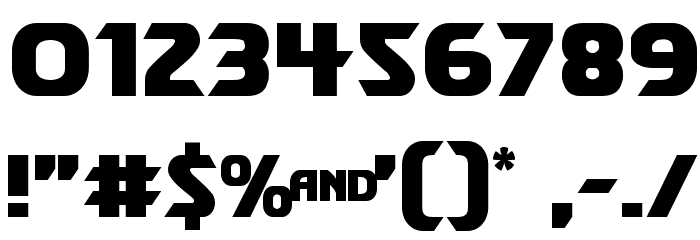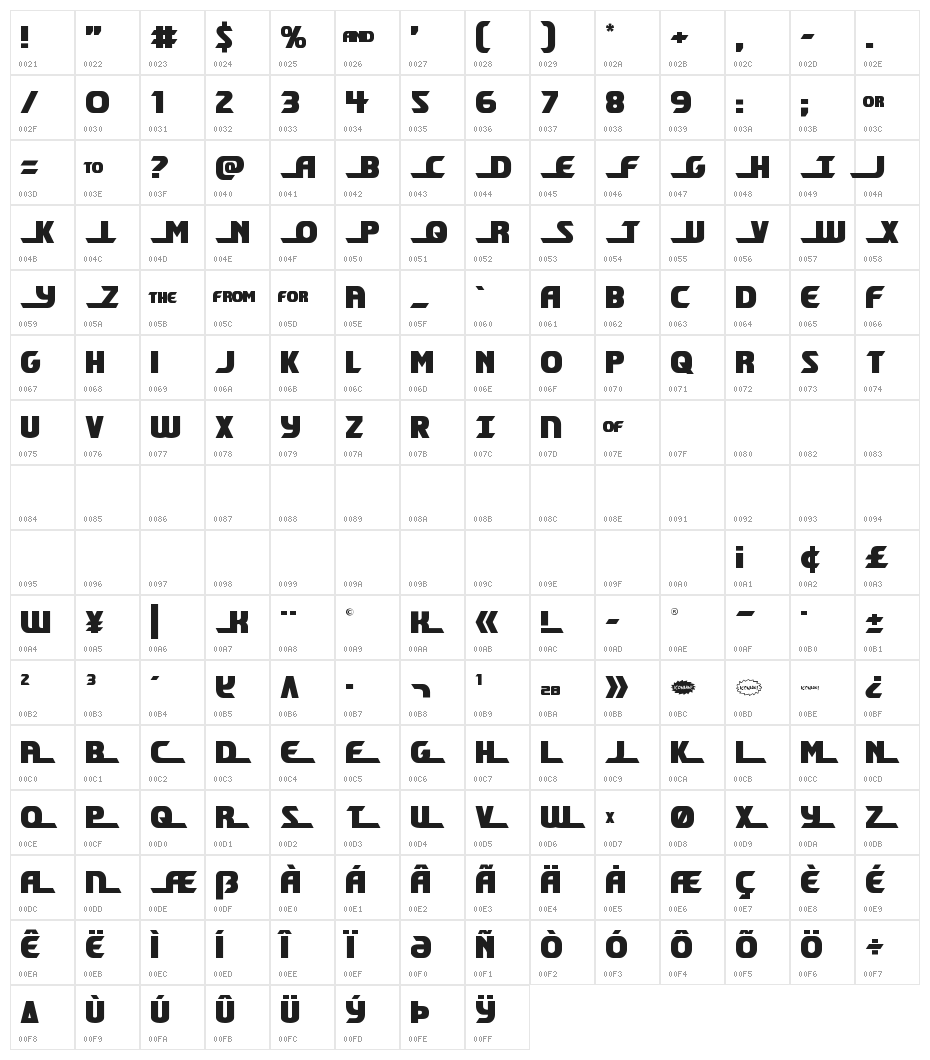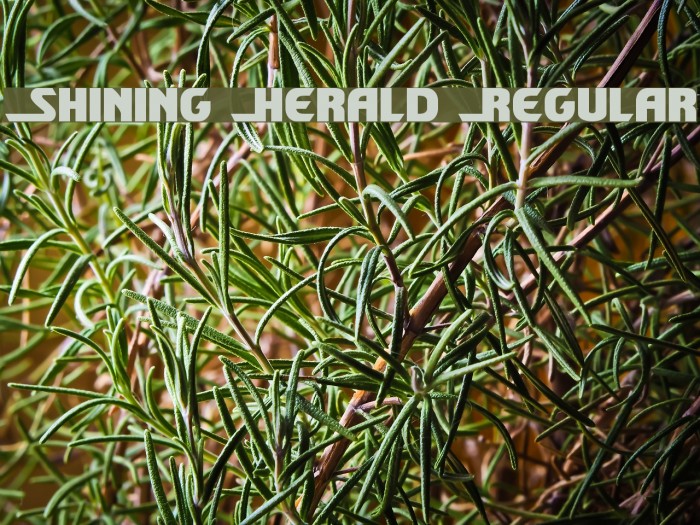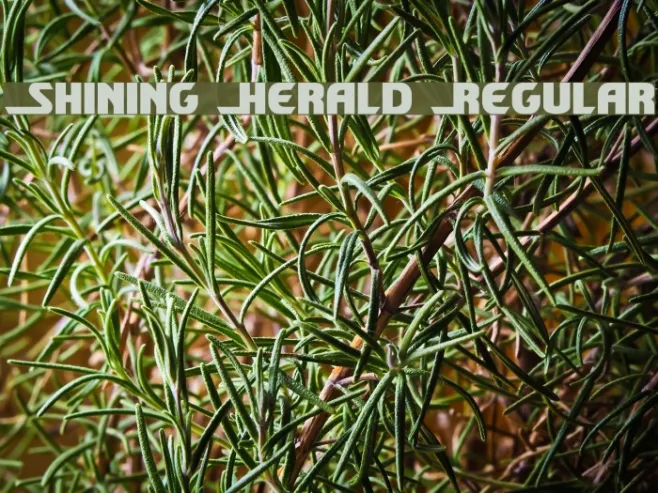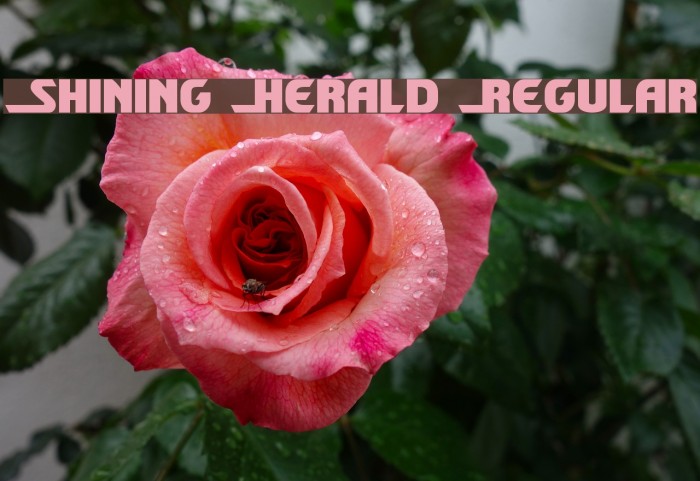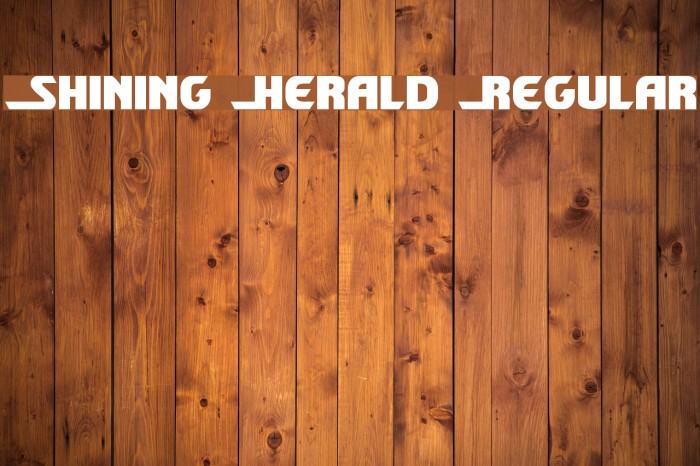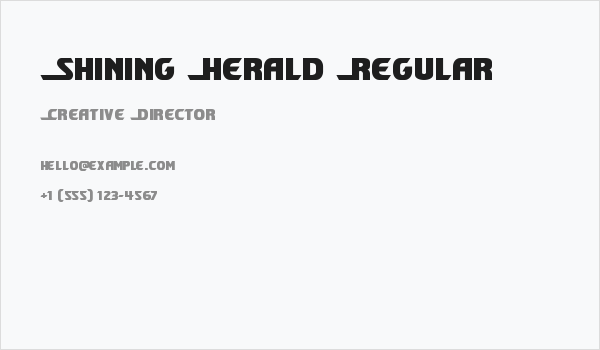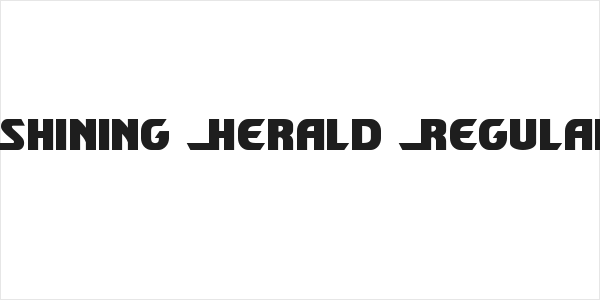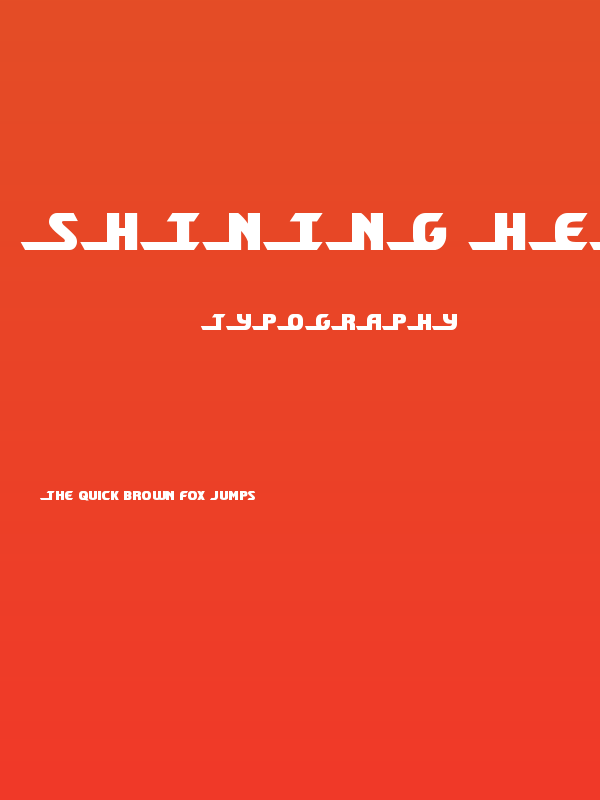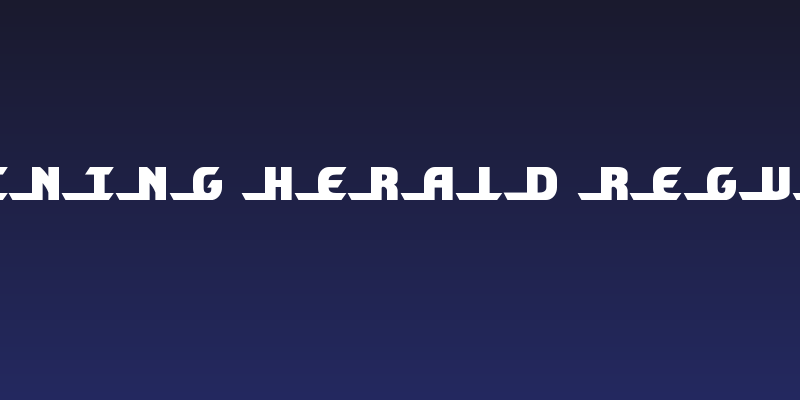
Shining Herald Regular Font
Shining Herald Regular Description
This font features a bold and striking design with a futuristic and geometric aesthetic. The uppercase letters are characterized by sharp angles and clean lines, giving a sense of modernity and strength. The lowercase letters maintain the same boldness, ensuring consistency across text. Numbers are equally robust, with a uniform thickness that enhances readability. Special characters are designed to match the overall style, providing a cohesive look. This font's distinct style makes it ideal for projects that require a bold statement.